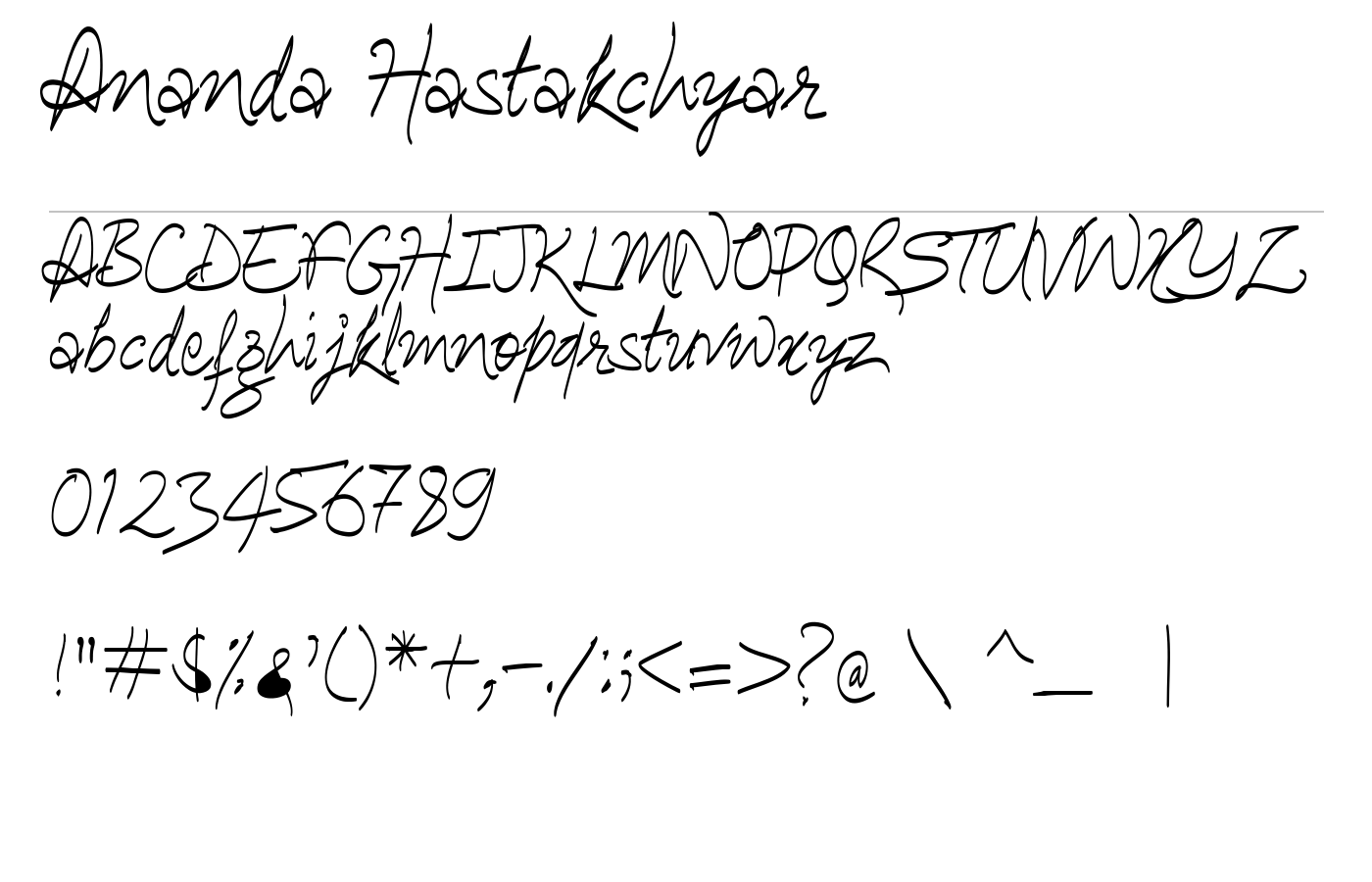
Ananda Hastakchyar is a delicate, handwritten script font with a light weight and slender stroke style, offering a playful yet elegant feel. Its flowing, slightly irregular letterforms and distinct character details create an intimate, personal touch, making it ideal for creative projects, invitations, and branding that seek a warm, artistic vibe. This font shines in designs where a casual, handcrafted aesthetic is needed to evoke friendliness and individuality.